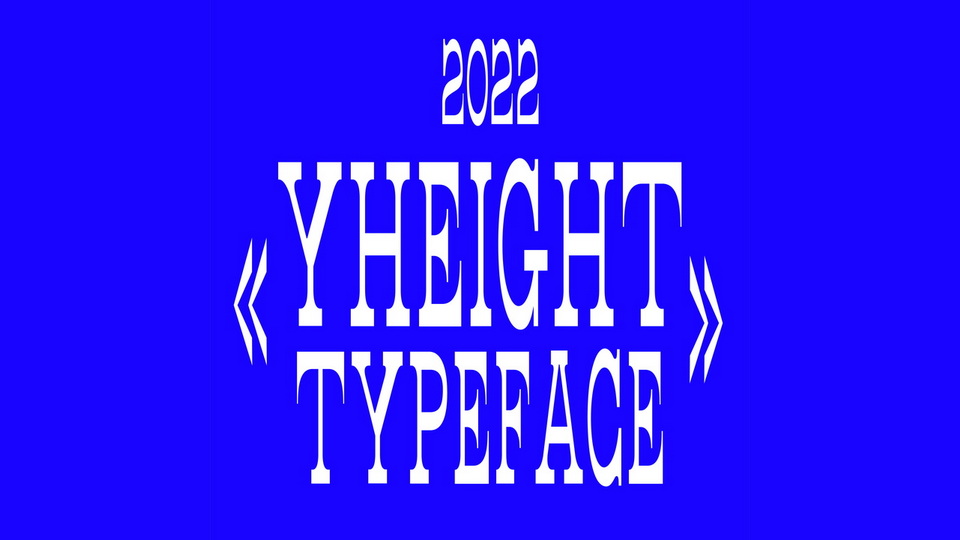
Download Y-HEIGHT font, a display typeface that is based on the idea of stretching along the Y axis. Glyphs have exaggerated elements such as elongated and massive serifs, as well as reverse contrast.
Designer: Taisiya Degtyar